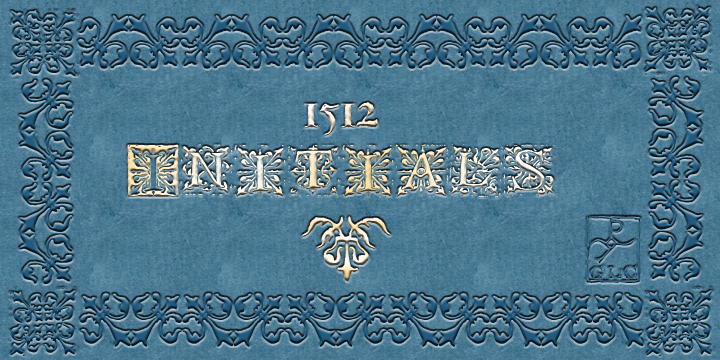
1512 Initials Font is perfect for illuminated manuscripts, historical publications, Renaissance-themed designs, formal certificates, monogram creation, classical book design, medieval reproductions, luxury stationery, and scholarly historical communications. This ornate typeface brings Renaissance magnificence and illuminated manuscript beauty to projects requiring decorative initial typography with period authenticity and scholarly elegance.
What makes 1512 Initials Font exciting is its Renaissance grandeur that captures the artistic splendor of 16th-century manuscript illumination and humanistic design excellence with remarkable historical accuracy and ornamental sophistication that transports viewers to the golden age of European scholarship. The font features elaborate decorative initials with intricate ornamentation and Renaissance character that reflects the artistic mastery of period scribes and the cultural refinement of humanistic learning. Its majestic personality and scholarly heritage make it irresistible for academic institutions seeking typography that communicates historical authority while celebrating the timeless beauty of Renaissance artistic traditions and manuscript illumination.
The 1512 Initials Font family includes ornamental weights and Renaissance styles: Regular, Bold, Decorative, and illuminated variations with historical alternates and Renaissance ornaments. Each style maintains the font's elaborate character while offering designers authentic flexibility for historical branding and Renaissance design applications requiring period accuracy and scholarly presentation.
Whether you're designing for academic publishers or historical institutions, 1512 Initials Font Free Download provides designers with an authentic, period-focused typeface solution. The font's Renaissance aesthetics and ornamental styling make it ideal for universities, museums, classical publishers, and cultural organizations. Its distinguished presence ensures your message communicates scholarly authority and historical refinement while maintaining excellent decorative readability. The comprehensive character set includes Renaissance symbols and illuminated decorations, making it perfect for creating magnificent headlines and publications that honor manuscript traditions and establish credibility in academic and cultural environments celebrating Renaissance scholarship and artistic heritage.